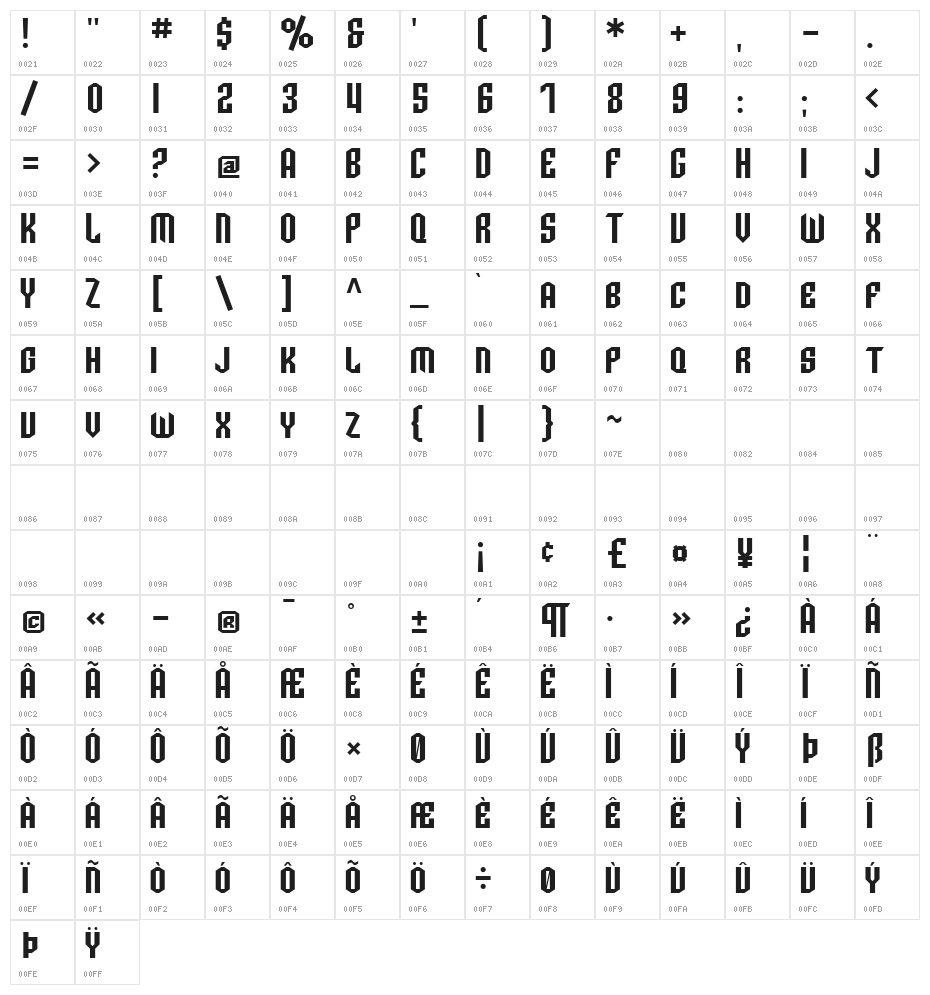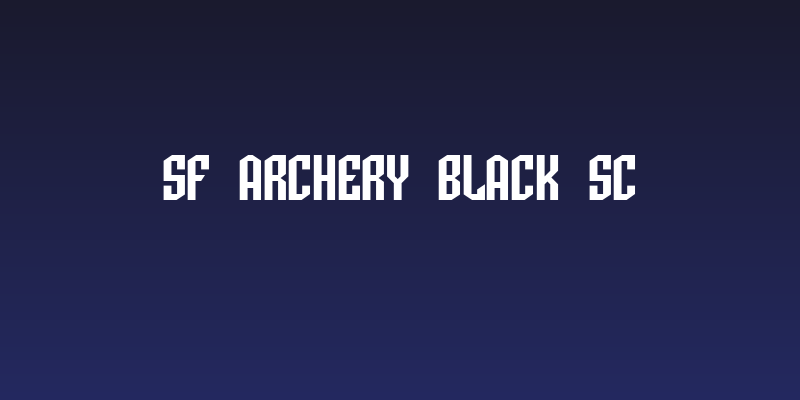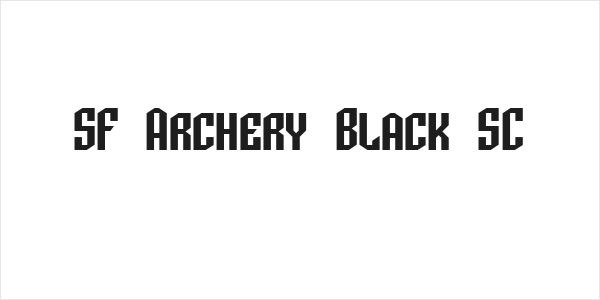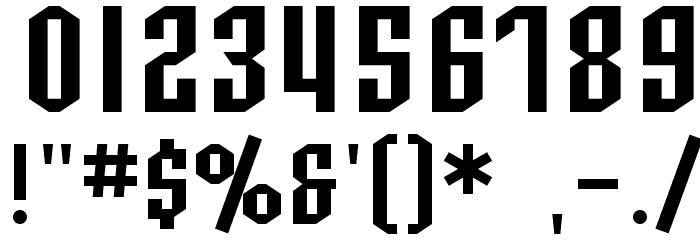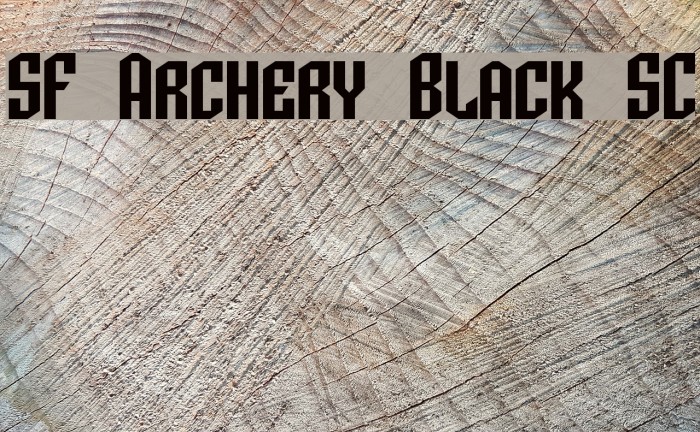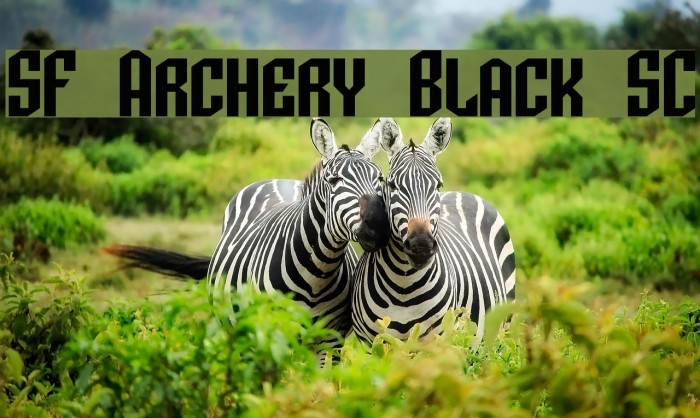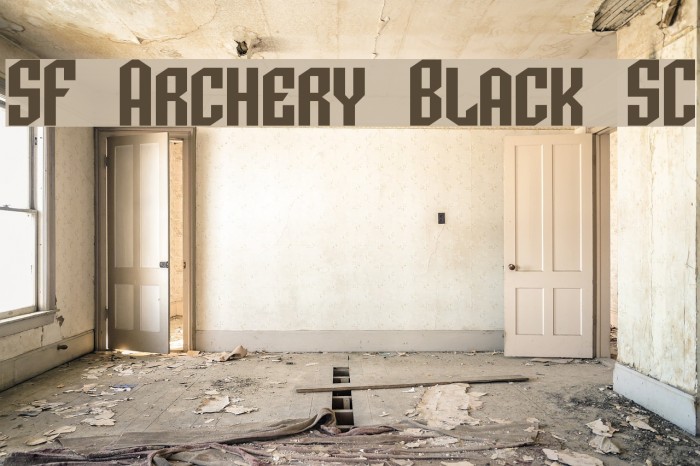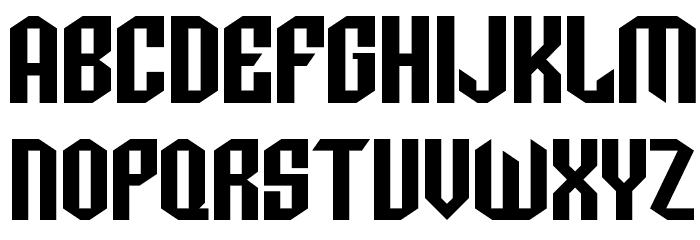
SF Archery Black SC Font
SF Archery Black SC Description
This font features a bold, geometric design with strong, angular lines and a modern aesthetic. The characters are constructed with a uniform stroke width, giving it a monolithic appearance. The uppercase letters are particularly striking, with a blocky, architectural feel that suggests strength and stability. The numbers and special characters maintain this robust style, ensuring consistency across all glyphs. The font's design is highly legible, making it suitable for impactful headlines and titles. Its unique style is both contemporary and versatile, lending itself well to a variety of design contexts.